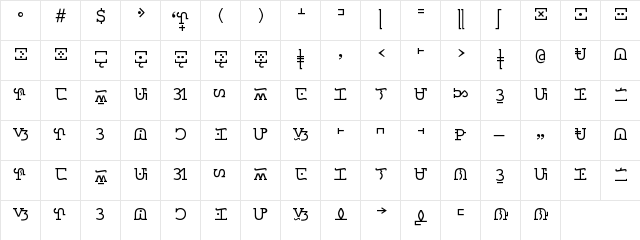
Formal Baybayin 2 - Normal Regular
Design Context for Formal Baybayin 2 - Normal Typeface
Formal Baybayin 2 - Normal is a composed and adaptable typeface that performs quietly and consistently across a wide range of design contexts.